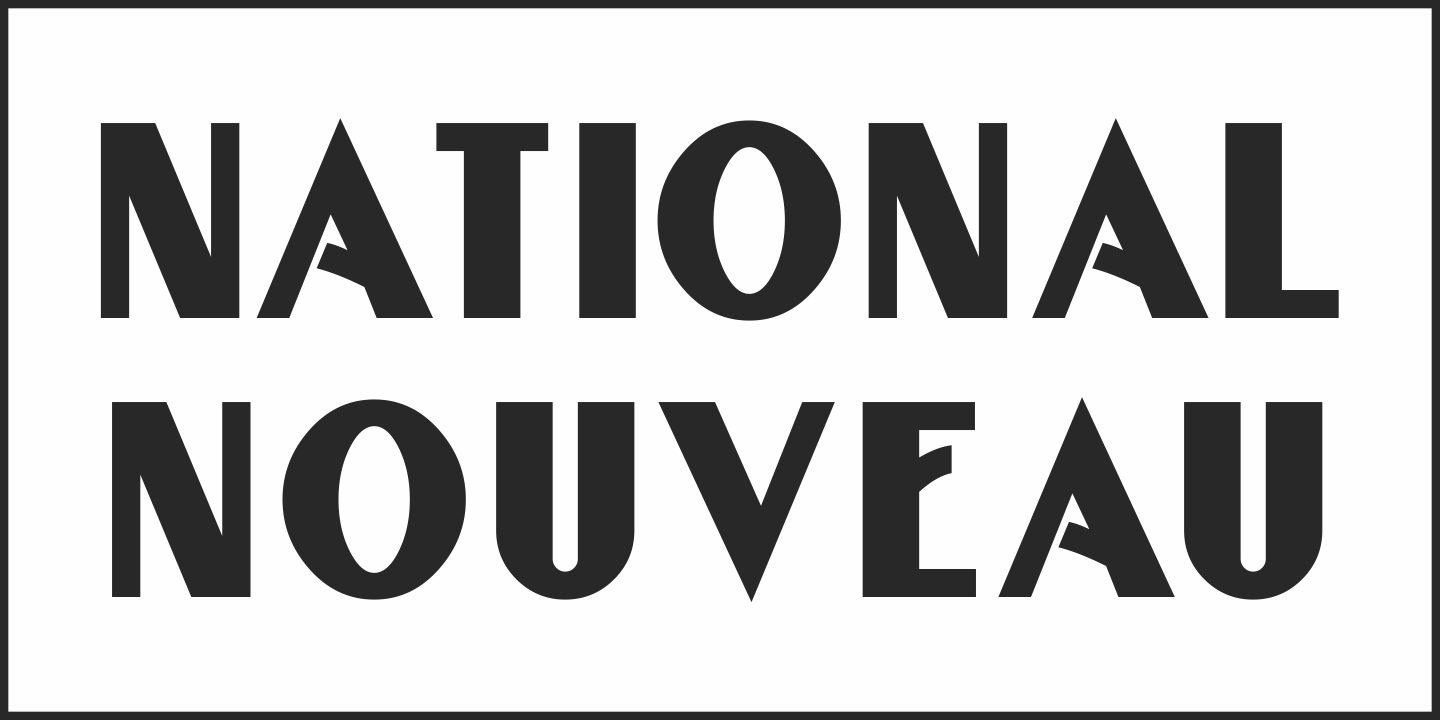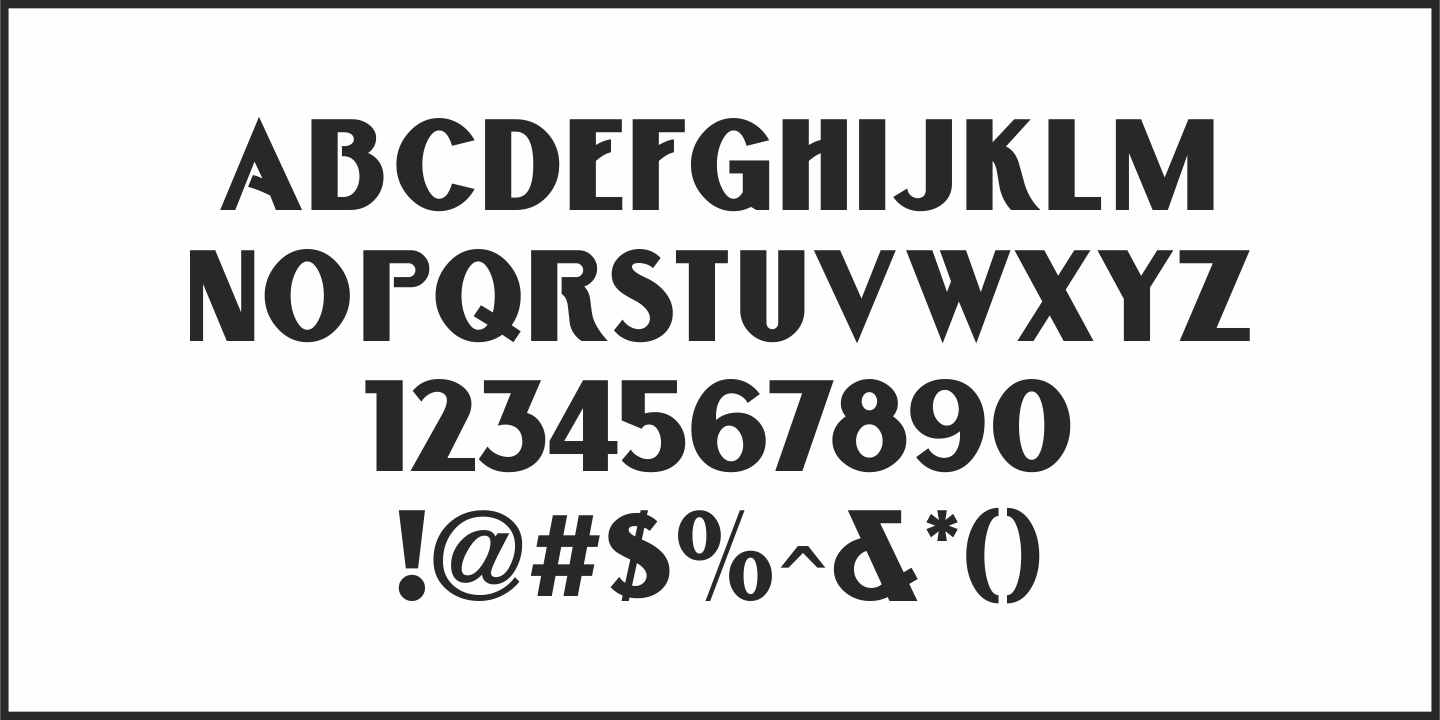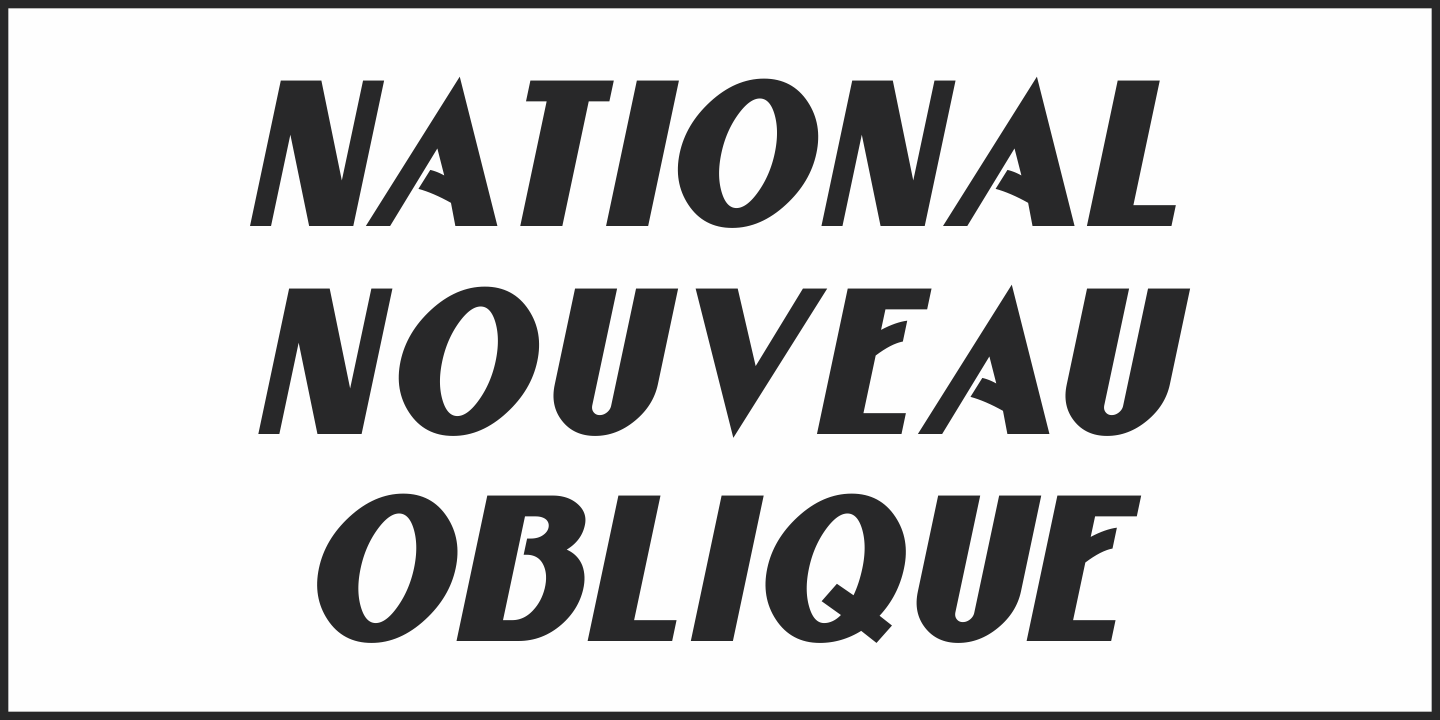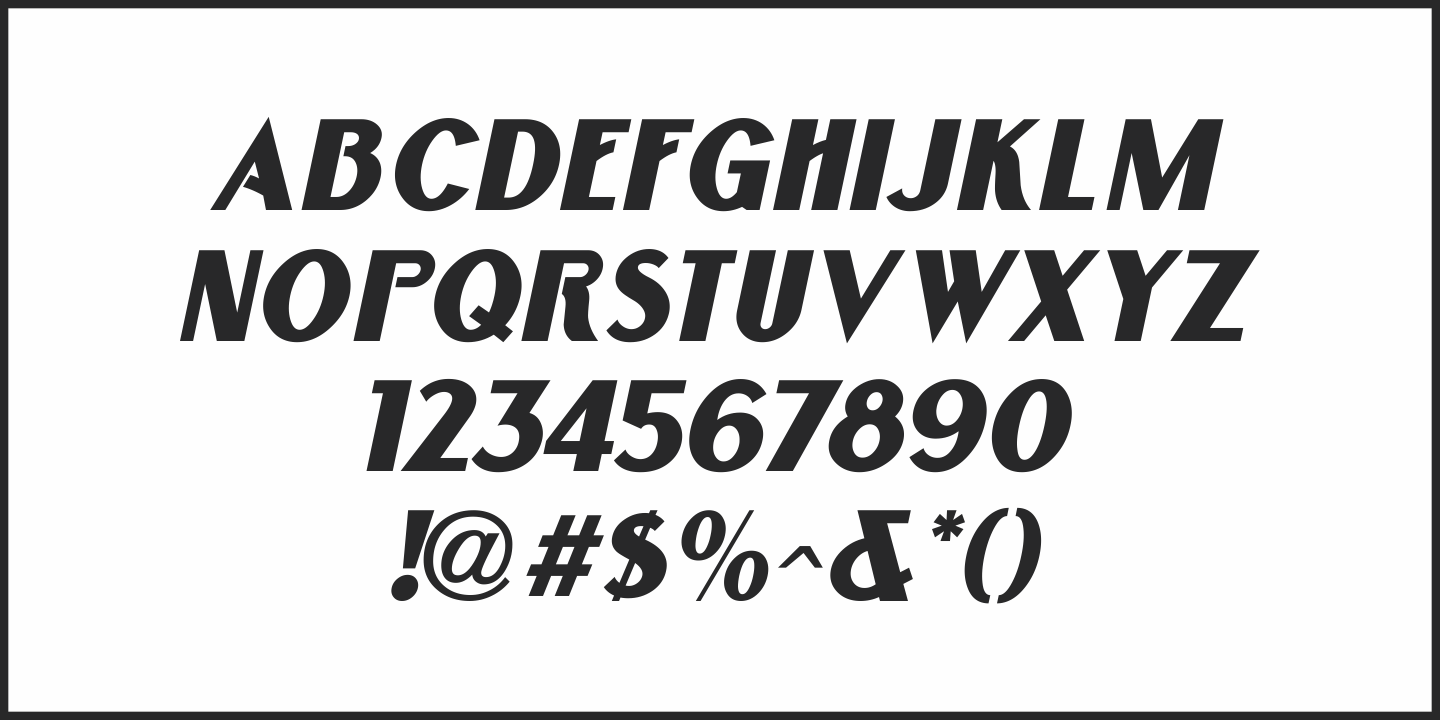
National Nouveau
The hand lettered title on the cover for the (ca. 1917) sheet music for 'After the War is Over” provided the design inspiration for National Nouveau JNL, which is available in both regular and oblique versions.
A precursor to the Art Deco movement which would arrive within the next decade, this bold thick-and-thin design embraces the elements of both Art Nouveau and Art Deco in one type design and gets its name from the patriotic spirit of America during 'The Great War”.
National Nouveau JNL Regular by Jeff Levine Fonts